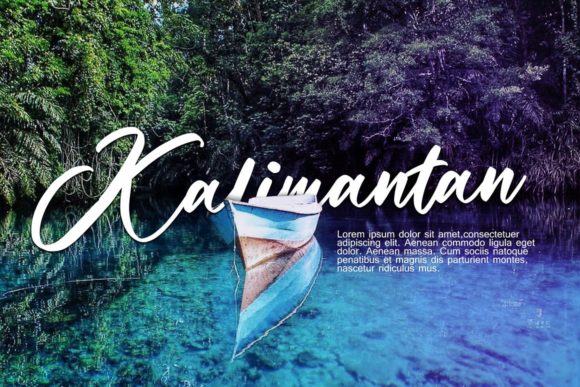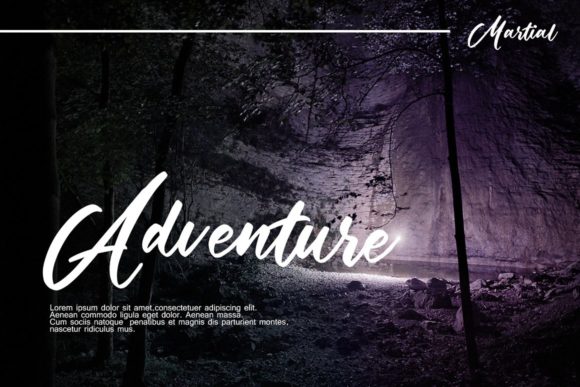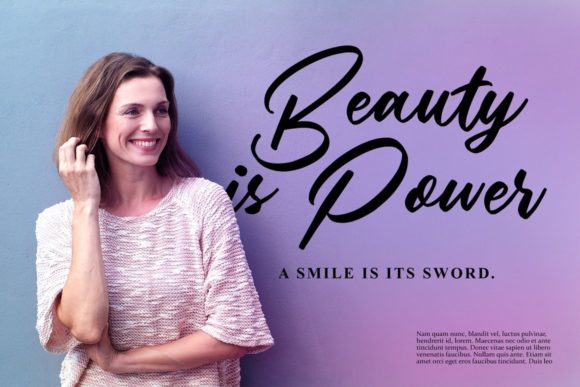
Introduction to Martial Script Font
Have you ever stared at a blank page, searching for that perfect font to bring your creative project to life? The excitement of a new design is like the thrill of the first brush stroke on a canvas – it sets the tone for a masterpiece. And that’s exactly what the Martial Script Font does – it adds a touch of elegance and sophistication to any design.
As a valuable design resource, the Martial Script Font is a game-changer for designers. Its bold and modern handwritten style is incredibly versatile, making it the perfect addition to a wide range of creative projects. Whether you’re working on a branding project, a social media campaign, or a digital art piece, this font is sure to impress.
With its PUA encoded glyphs and swashes, you can easily access the high-quality features of the Martial Script Font. Plus, with a transparent background, you can use it on any design element – from logos to icons to illustrations. And the best part? It’s available for free download, making it an accessible design resource for designers of all levels.
Key Features of Martial Script Font
- High-quality, elegant script font perfect for creative projects, such as wedding invitations, logos, and typography designs.
- Features a unique, handwritten style with subtle flair, ideal for adding a touch of personality to designs.
- Designed to work well with a range of font sizes and styles, making it a versatile design resource.
Honest Review: Martial Script Font
As a designer, I’m always on the lookout for unique and versatile fonts to add some personality to my creative projects. The Martial Script Font is a high-quality, free download that’s definitely caught my eye. Its elegant and artistic design makes it perfect for a variety of applications, from wedding invitations to branding materials.
Here are some things that work well with the Martial Script Font: ✨
- Unique and artistic design that sets it apart from other fonts
- Perfect for creative projects that require a touch of elegance
- Works well with a transparent background, allowing the text to shine
- High quality, with clear and crisp lines
However, there are a few limitations to consider: ⚠️
- Not ideal for body text or large blocks of text, as it can be difficult to read
- May not be suitable for digital displays, as it can appear blurry or pixelated
Overall, I’m really impressed with the Martial Script Font. It’s a great addition to any designer’s toolkit, and I’d definitely recommend it for creative projects where a unique and elegant font is needed.
How to Use Martial Script Font
Tips for Getting the Most Out of Martial Script Font
To get the most out of the Martial Script Font, use it in conjunction with other design resources to create a unique and eye-catching design. Experiment with different font sizes, colors, and combinations to achieve the desired look.
The Martial Script Font is commonly used in creative projects such as wedding invitations, event promotions, and product branding. It is also used in designs that require a high-quality, elegant font with a transparent background.